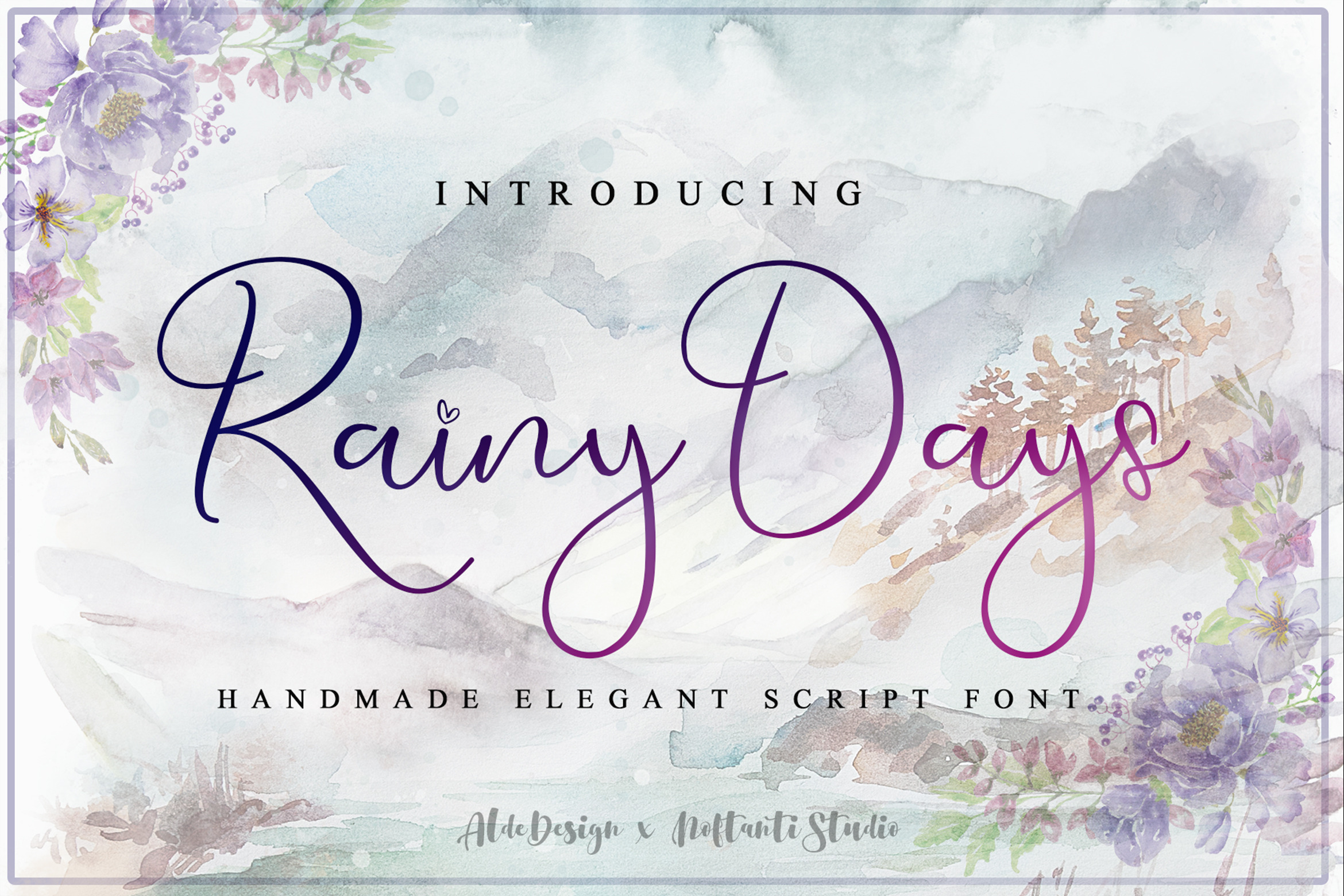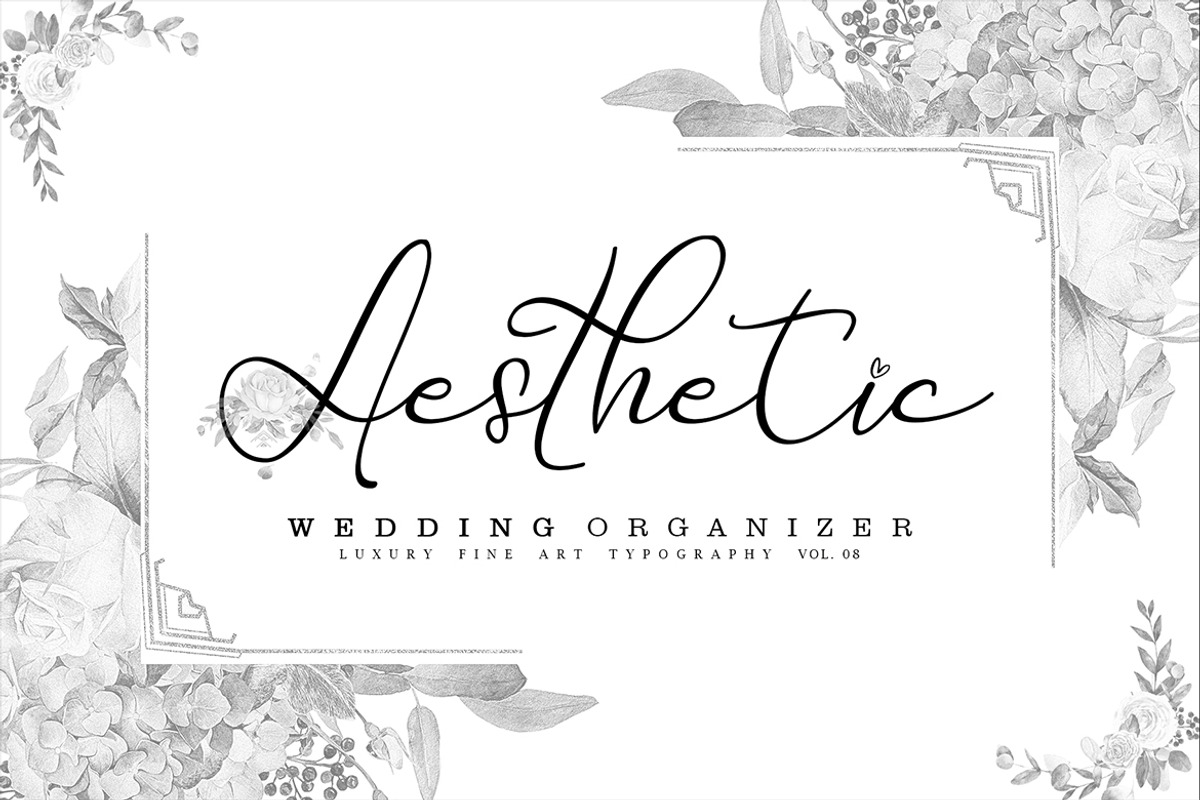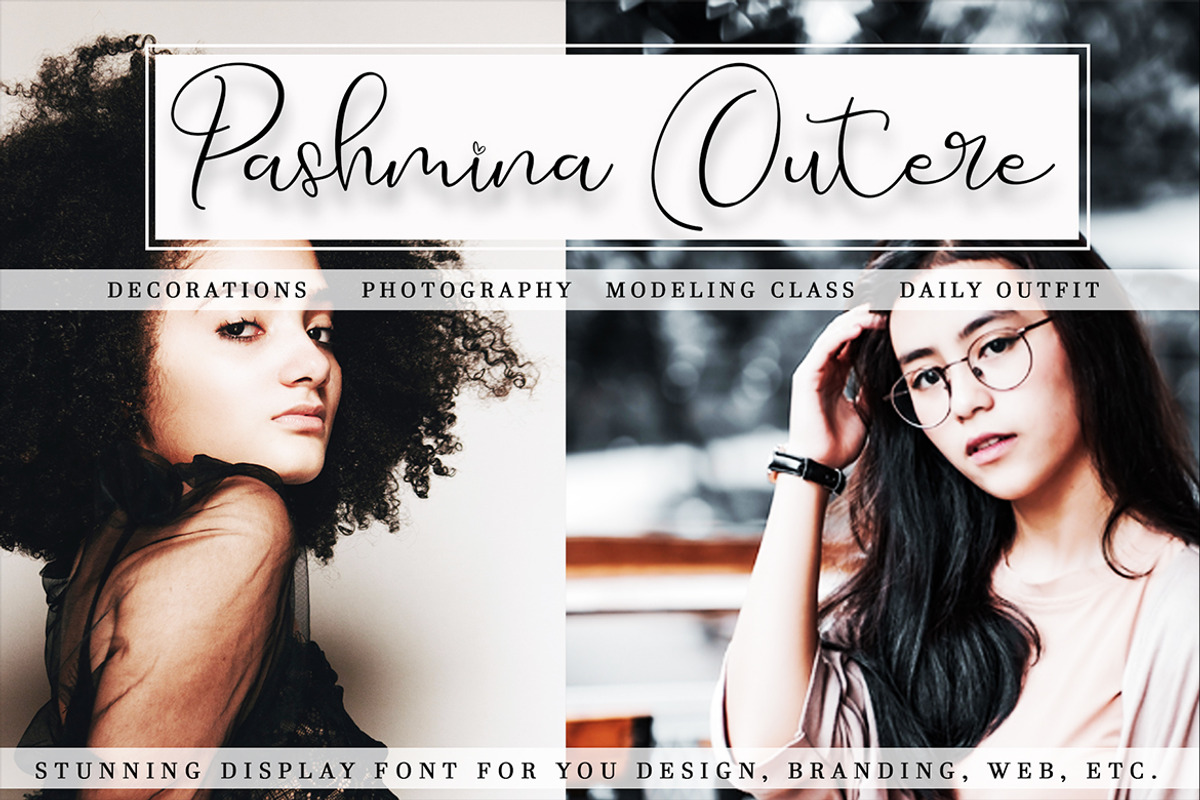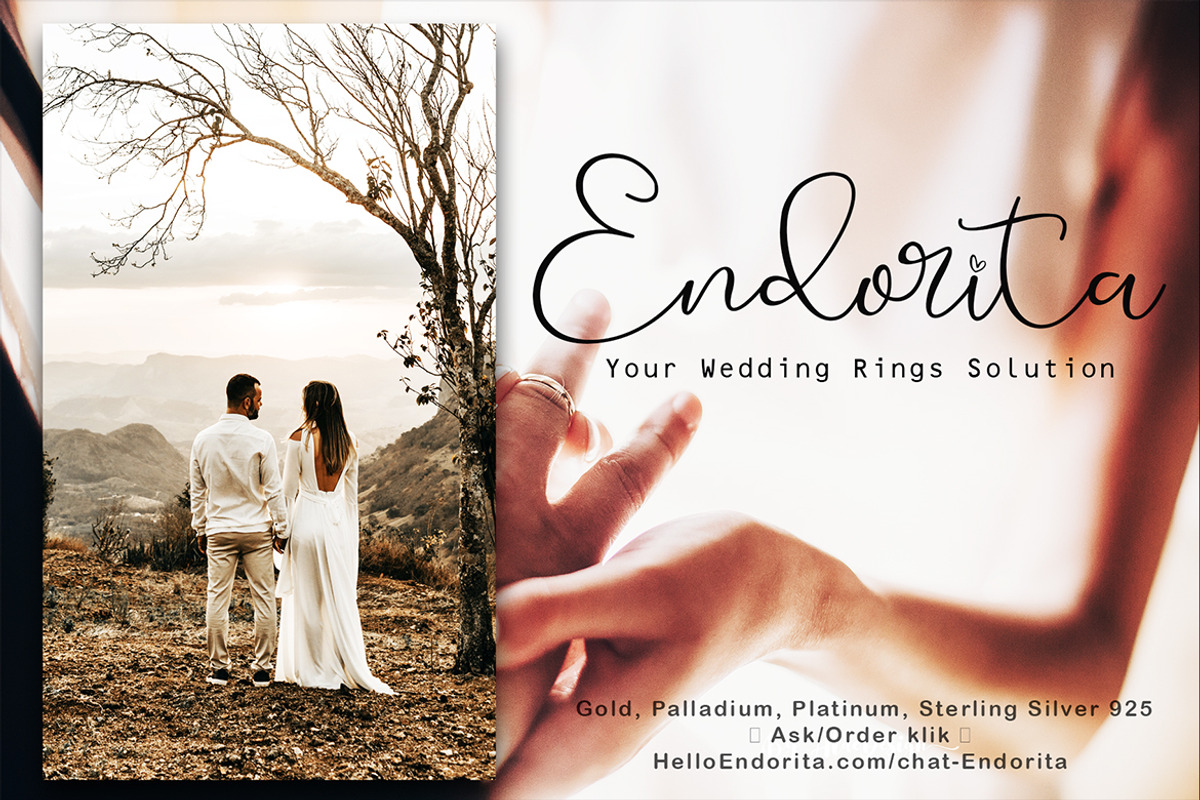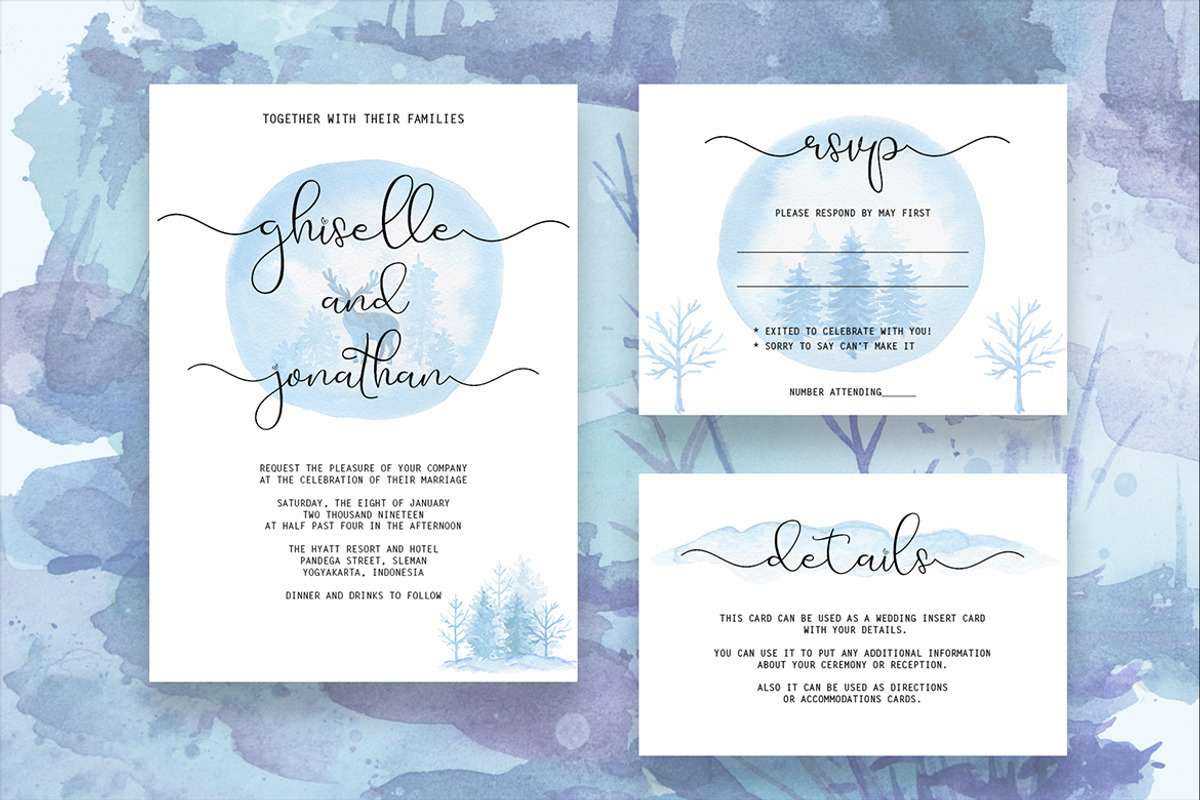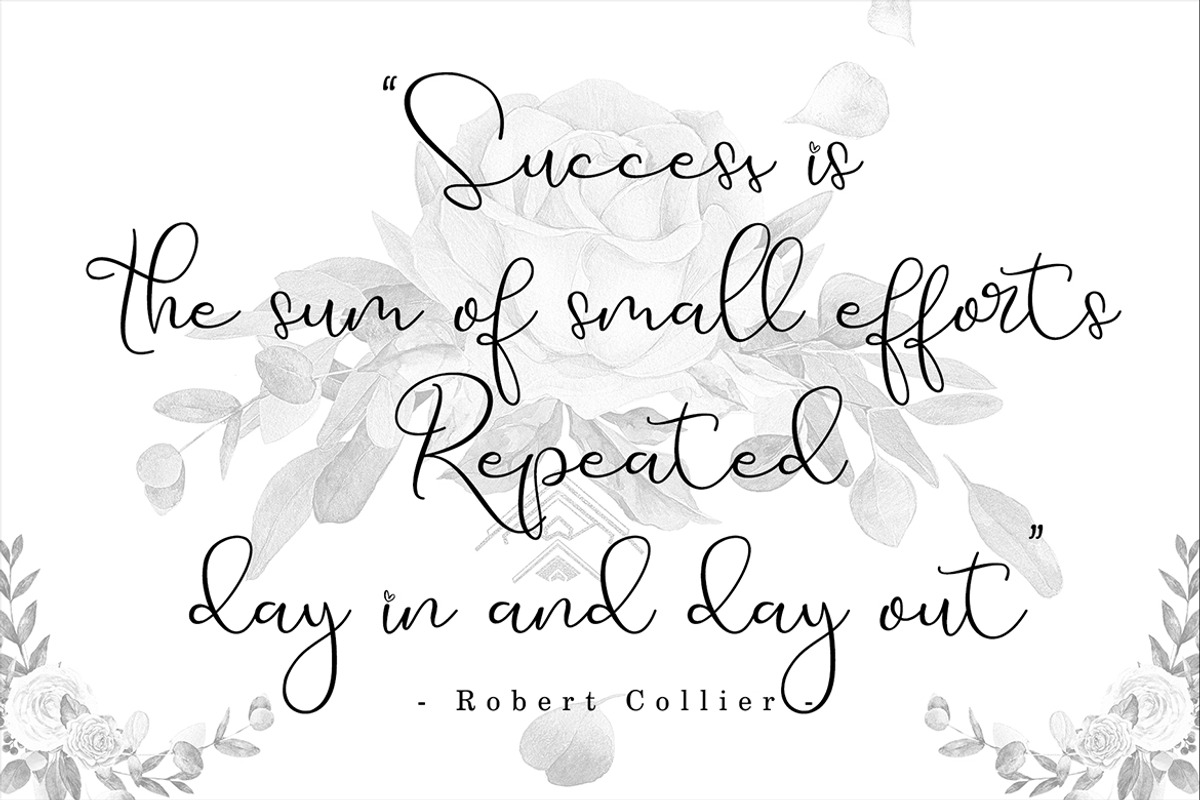
Rainy Days Elegant Script Font
Rainy Days are inspired by classic typography and bring its own unique style to any design project. Fall in love with its authentic feel and use it to create gorgeous wedding invitations, beautiful stationary art, eye-catching social media posts, and cute greeting cards.
- Stylish modern handwritten script
- Beautiful Swash (Ending tail)
- Beautiful Titling (Beginning tail)
- Special Ligatures